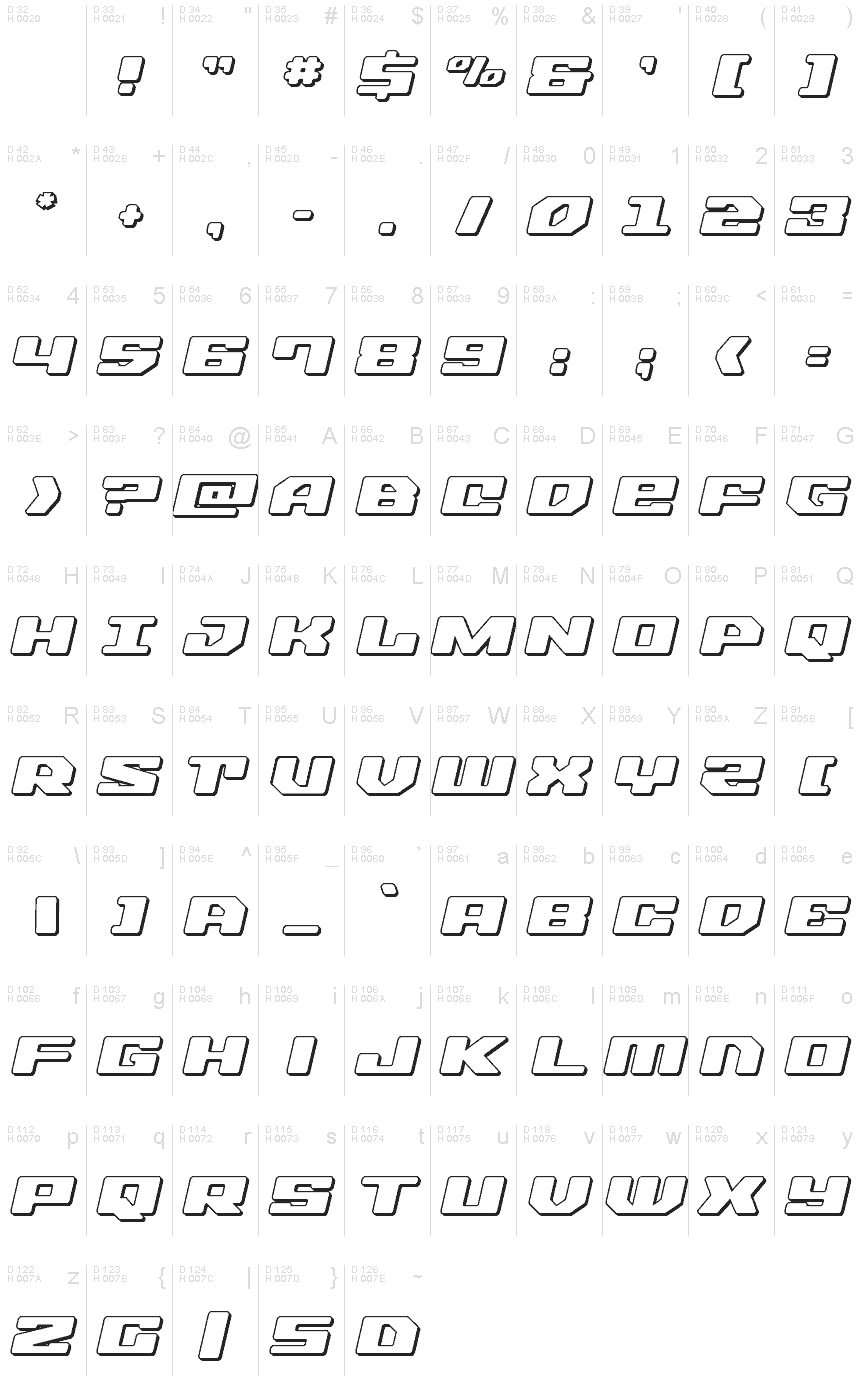
Fawkes 3D Italic
Fawkes 3D Italic font by Iconian Fonts is a bold expanded techno display typeface suitable for both short and long texts. A characteristic futuristic vibe characterizes its geometric angular lettering, previously directly inspired by urban letterforms and graffiti. The lines are sharp, with very few gentle curves that overall make up the modern edgy look that this free typeface is arguably all about.
Fawkes 3D Italic font should be considered for use in headings, billboards, magazines, newspapers, movie posters art posters, flyers, social media posts and covers, apparel designs and branding. Suitable further usage ideas include packaging designs or museum exhibits.